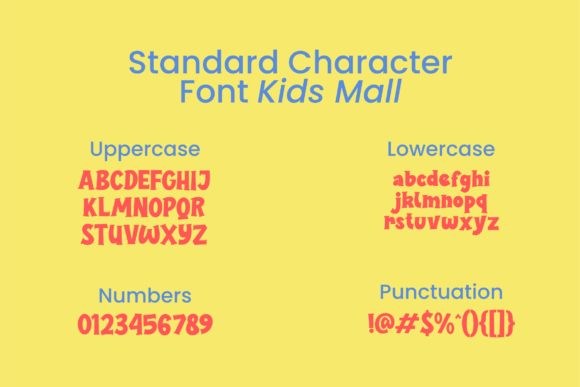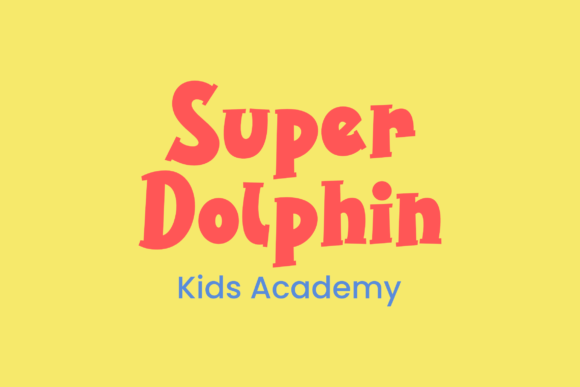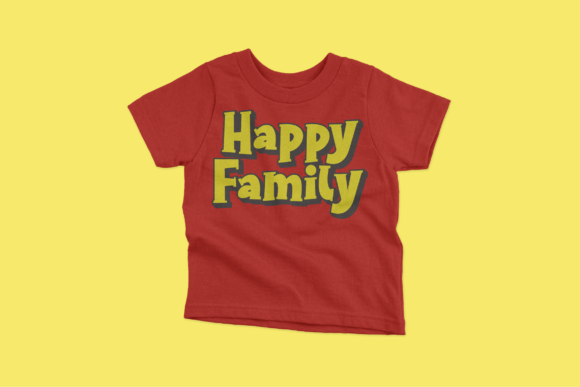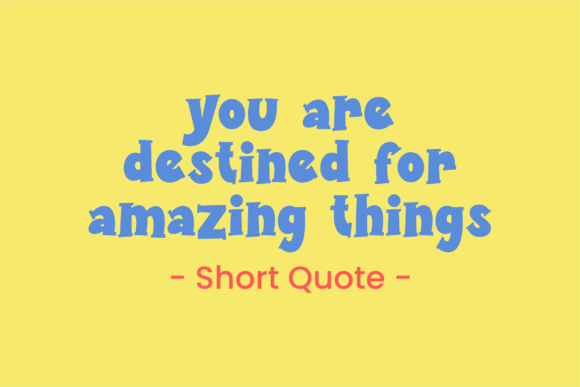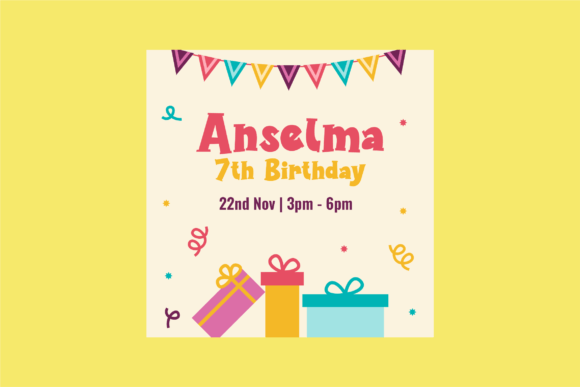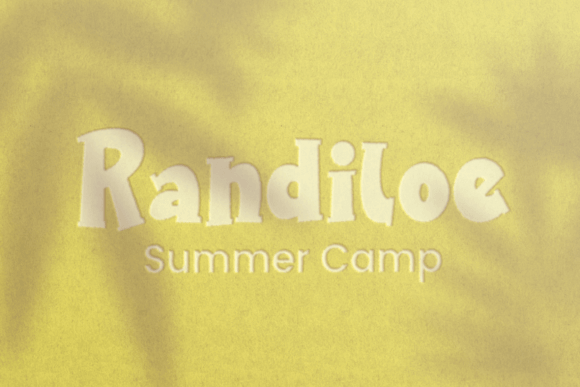
Introduction to Kids Mall Font
Have you ever been working on a design project, and suddenly, a burst of color and creativity hits you? That’s exactly what happened to many designers when they discovered the Kids Mall Font. This vibrant and playful font is a game-changer for any creative project that needs a fun and energetic touch.
As a valuable resource for designers, the Kids Mall Font is a must-have for anyone looking to add a pop of personality to their designs. With its unique extrude style and transparent background option, this font is perfect for creating eye-catching quotes, t-shirt designs, and logos that stand out from the crowd. Whether you’re working on a personal project or a client’s request, the Kids Mall Font is a high-quality design resource that’s sure to deliver.
Key Features of Kids Mall Font
- High-quality design resource ideal for creative projects targeting a younger audience.
- Features a transparent background, allowing for easy customization and layering in design projects.
- Designed specifically for use in kids’ content, educational materials, and children’s entertainment projects.
- Unique, playful design that adds a touch of whimsy to creative projects.
Honest Review: Kids Mall Font
I recently stumbled upon the Kids Mall Font and was excited to give it a try. As a designer, I appreciate a good design resource that can elevate my creative project. This font has a lot of potential, but as with any font, it has its strengths and weaknesses.
- The Kids Mall Font is a high-quality font with a fun and playful vibe, perfect for designing kids-related materials.
- It has a transparent background, which makes it easy to use in various design projects.
- The font is a bit limited in terms of its character set, which may not be suitable for projects that require a wide range of characters.
- The font may not be suitable for formal or professional projects, as it has a very casual and playful feel.
Overall, I would say that the Kids Mall Font is a great addition to any designer’s toolkit, especially for creative projects that require a fun and playful vibe. While it has some limitations, it’s a great option for designers who are on a budget and need a high-quality font for their projects.
The Kids Mall Font is a high-quality, free download design resource ideal for creative projects that require a playful and modern touch. Its transparent background makes it easy to customize and integrate into various design platforms.
Tips for Getting the Most Out of Kids Mall Font
To get the most out of the Kids Mall Font, try using it in combination with other design elements, such as bright colors and playful graphics. Experiment with different font sizes and styles to add visual interest to your design.
The Kids Mall Font is perfect for designing children’s products, such as toys, clothing, and educational materials. It’s also great for creating